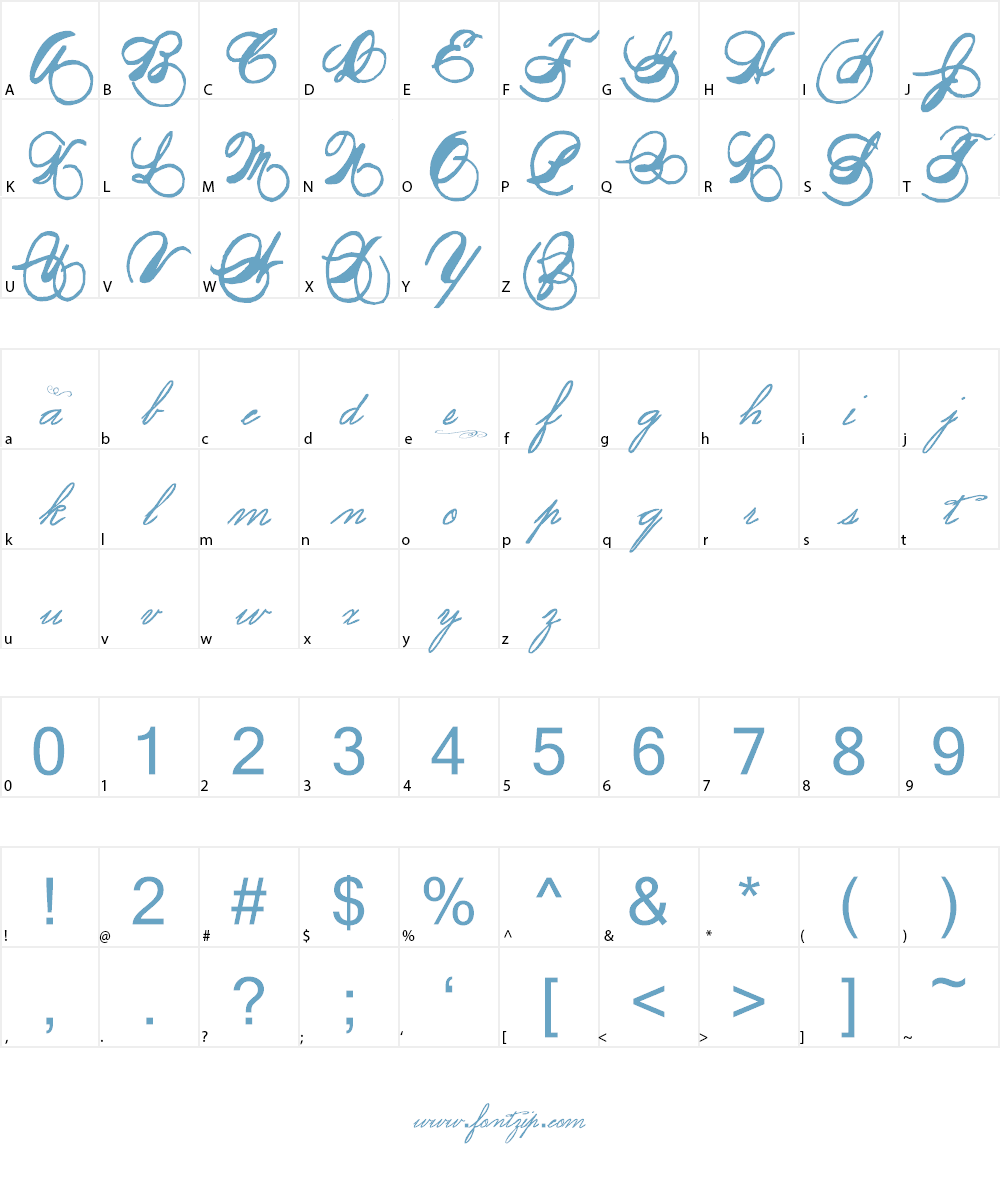
Cherish Is the Word font is a form of Spencerian script handwriting. It features large capitals done as calligraphy with heavy and thin lines and very ornate loops. This font family is lightly flourished. As a Demo version, you may use it for personal use and to test it. Contact me for full version licensing and pricing.